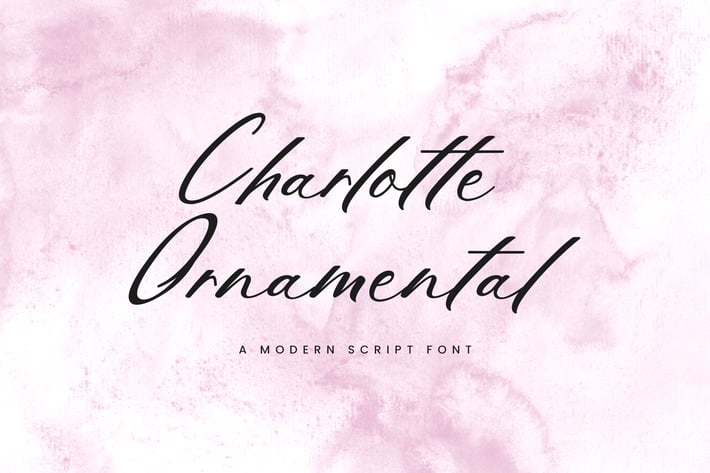
Charlotte Ornamental Calligraphy Font
Introducing our new product the name is Charlotte Ornamental Calligraphy Font. The modern signature font feels beautiful classy, elegant, and modern. This font is perfectly suited for a wide variety of projects, such as to signature, stationery, logo, wedding, typography quotes, magazine or book covers, website header, branding, and more. Also, fashion-related branding or editorial design displays both masculine and feminine qualities.